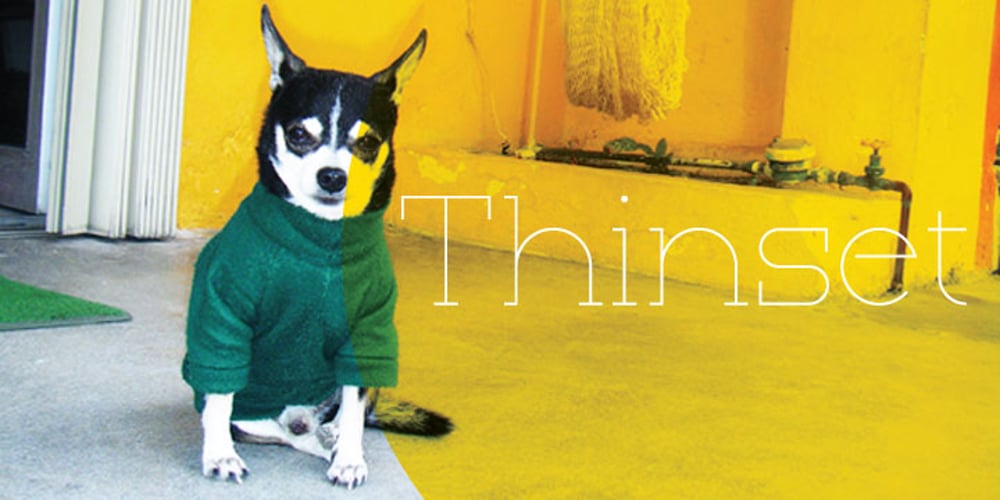
Thinset
Thinset font
Thinset Font Family was designed by Joshua Grzybowski and published by Josh Grzybowski. Thinset contains 1 styles and family package options. The original intent for Thinset was to be used strictly as a display font only, but this single weight typeface can at times work great as a body of text as well. It’s a clean, legible, and light font which is ideal for publications like fashion and editorial magazines. In addition to ligatures and fractions, Thinset’s other OpenType features include old style numbers and small caps.